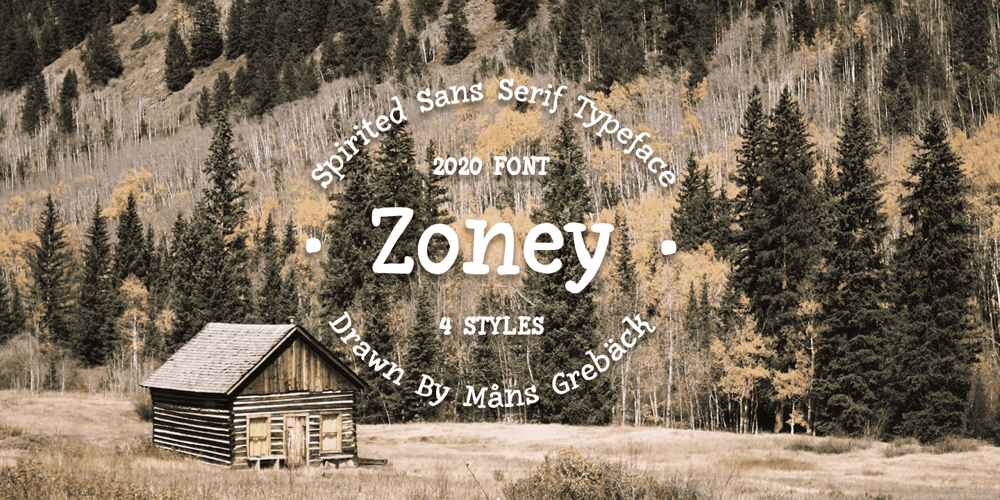
Zoney Font Family was designed by Måns Grebäck and published by Mans Greback. Zoney contains 4 styles and family package options. Zoney is a rustic slab serif typeface family. The lettering was hand-painted by Mans Greback between 2019 and 2021. It will give any project a handmade, natural and down-to-earth look. The font comes in four styles: Regular, Italic, Bold and Italic BoldIt has very extensive lingual support, covering all European Latin scripts as well as Cyrillic. The font contains all characters you’ll ever need, including all punctuation and numbers.